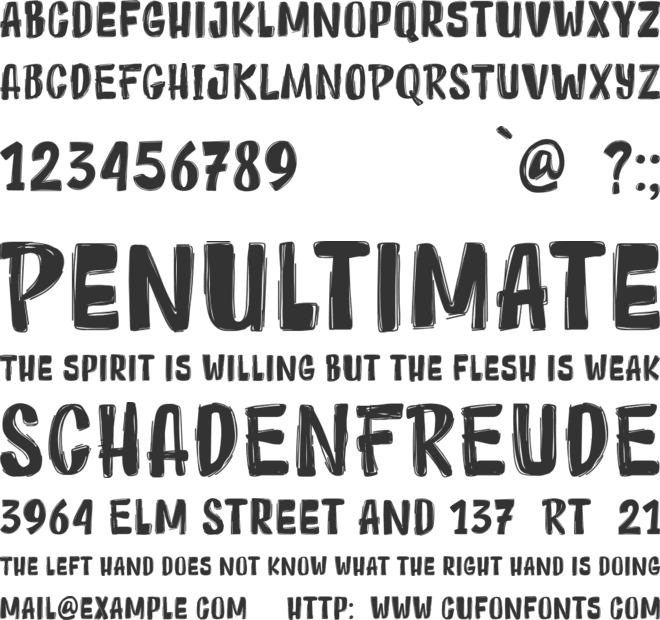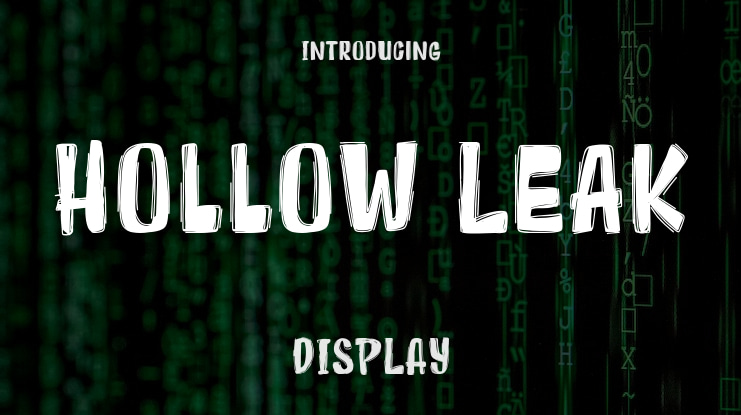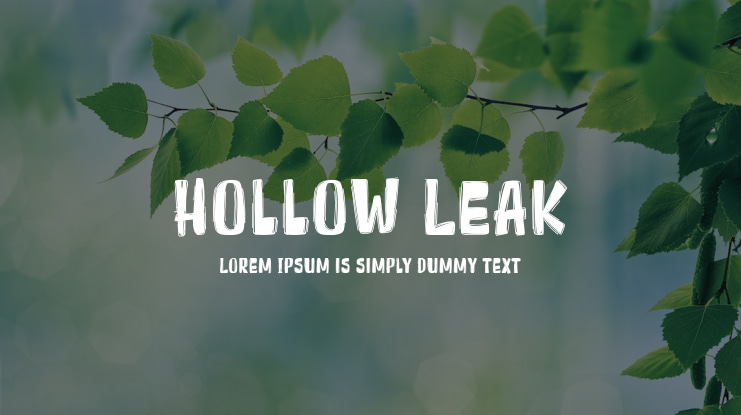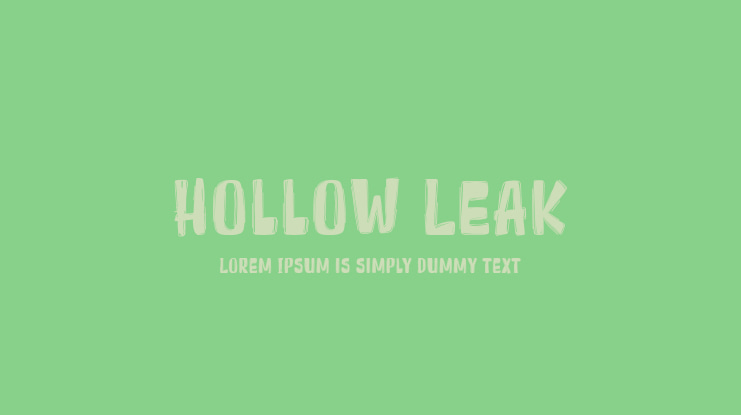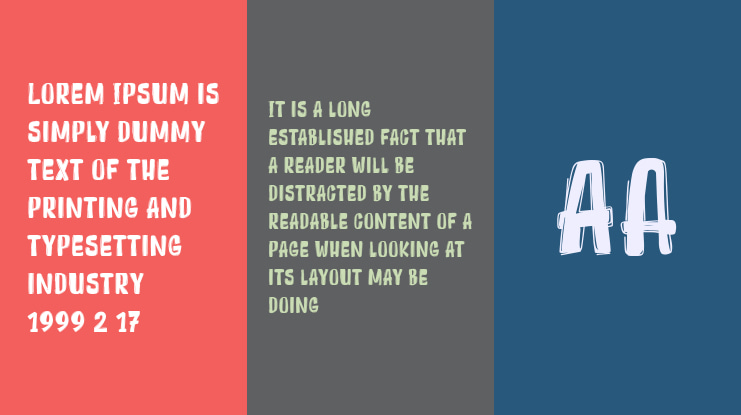
Hollow Leak is a Bold Caps font that comes with Halloween-themed dingbat doodles. It's unique and easy to use, suitable for display purposes or creating doodles with our dingbats.